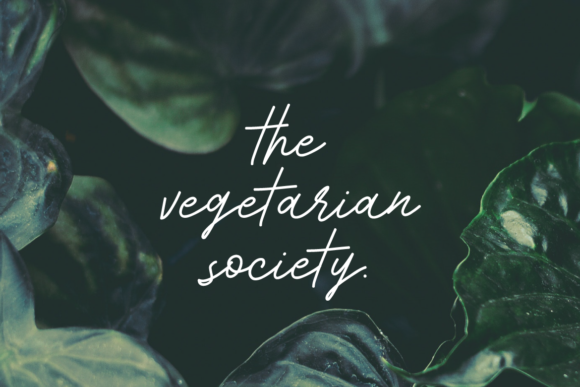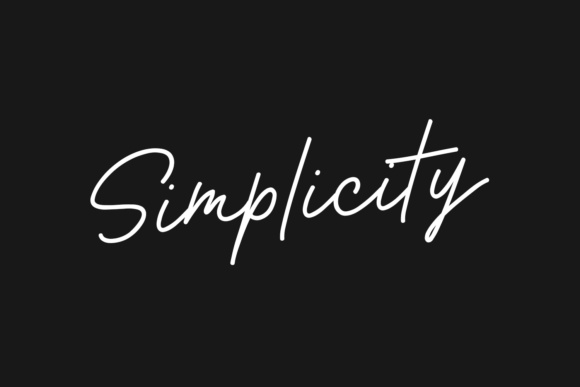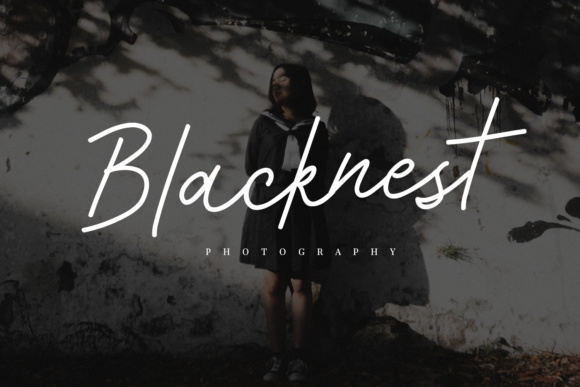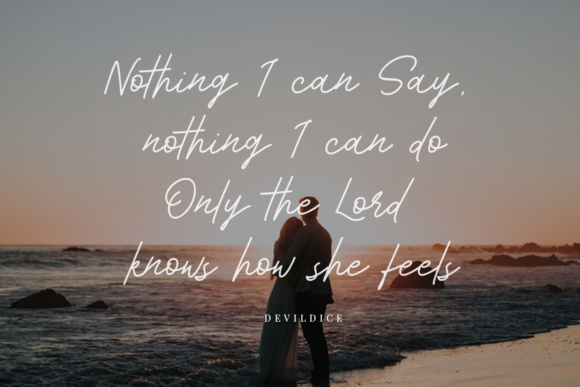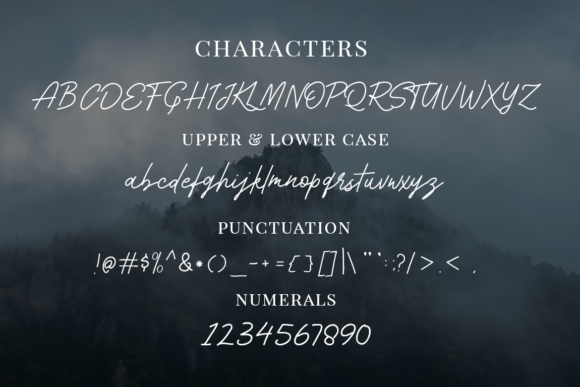
The Kathy Room Font
About The Kathy Room Font
The Kathy Room is a handwritten font with a modern and casual look. It’s completely hand-styled, and digitally perfected.
The Kathy Room is perfect for your up coming projects. Such as logos, blog headers, wedding invitations, branding, t-shirts, posters & many more type of projects!